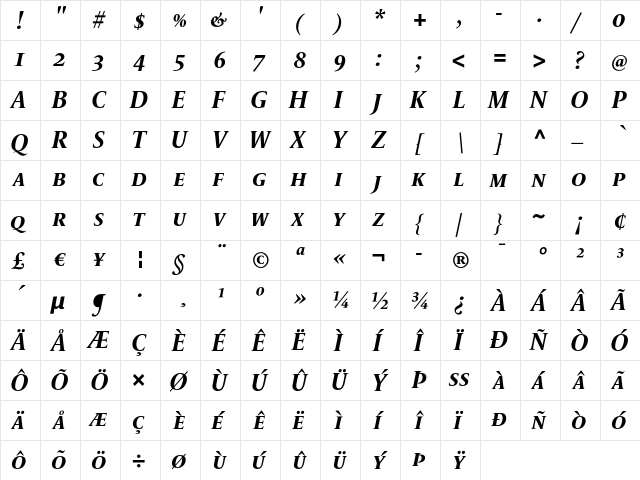
LeMonde Livre SC BoldItalic Font Preview
Design Context for LeMonde Livre SC Typeface
LeMonde Livre SC takes a measured approach to typography — its balanced proportions and neutral character make it a reliable workhorse for both digital and print work. The slanted form adds forward momentum and visual energy. The heavy weight commands attention and anchors typographic hierarchies.
Pro Tip: Try LeMonde Livre SC for annotation and caption copy alongside an upright companion — the contrast in angle creates a dynamic but ordered typographic system.